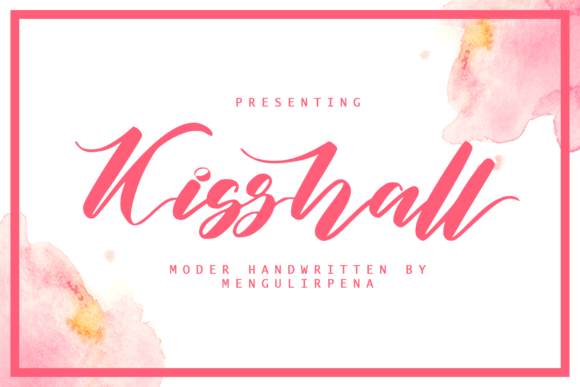
Prepare to be mesmerized by Kisshall, the enchanting script font that will ignite your creativity and transform your designs into captivating masterpieces. Its elegant brushstrokes evoke the allure of a handwritten script, flowing effortlessly across your screen like a sweet melody.
Kisshall's versatility knows no bounds, seamlessly adapting to a symphony of projects, from the graceful curves of wedding invitations to the alluring whispers of beauty salon posters. Imagine your designs blossoming into works of art, capturing the essence of femininity and sophistication.
Unleash your imagination and let Kisshall's magic weave its spell on your creations. Its PUA encoding grants you the power to effortlessly access a treasure trove of glyphs and swashes, unlocking endless possibilities for customization.
With Kisshall as your creative ally, you'll embark on an extraordinary journey, where each stroke of your imagination becomes a testament to the beauty that lies within your designs. Embrace the allure of Kisshall and let your creativity soar to new heights.